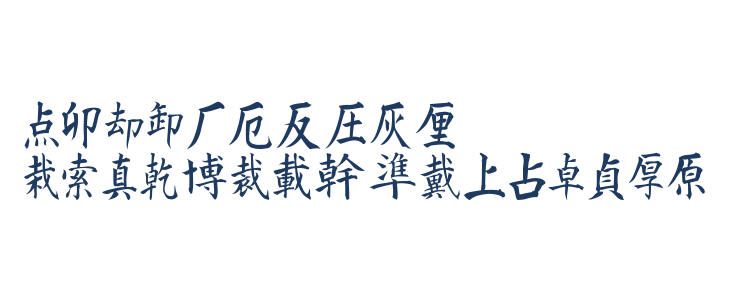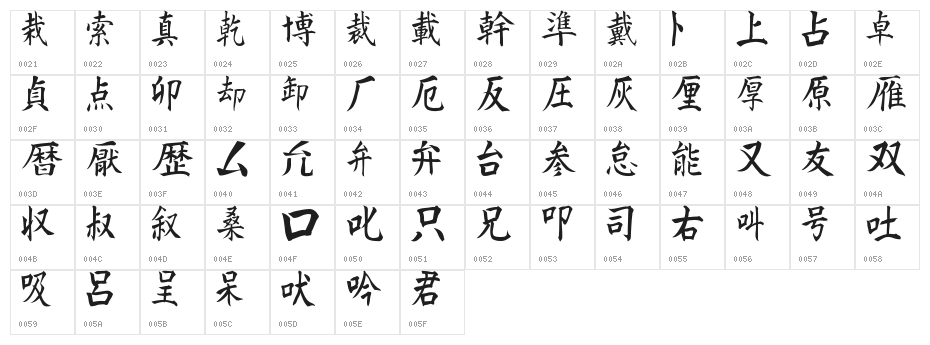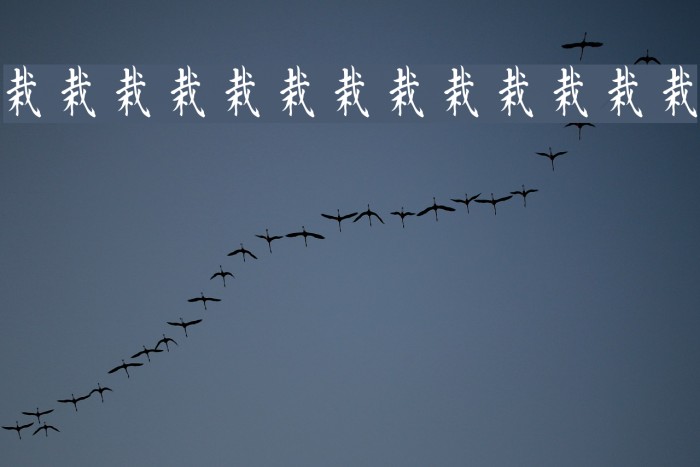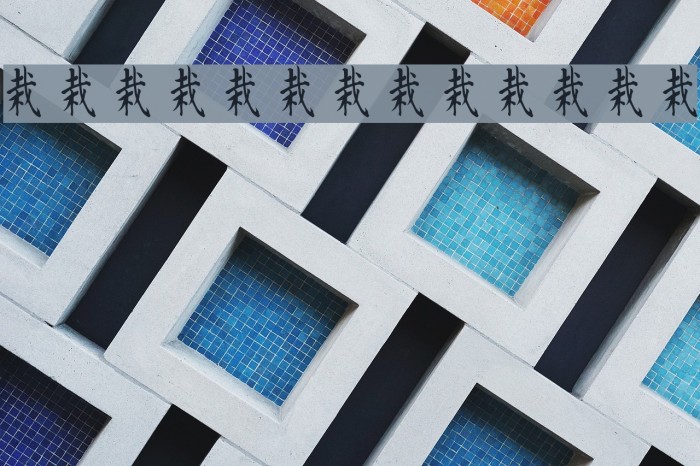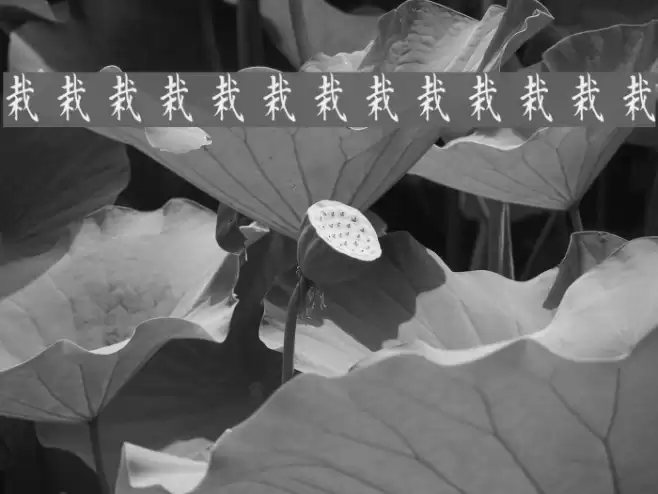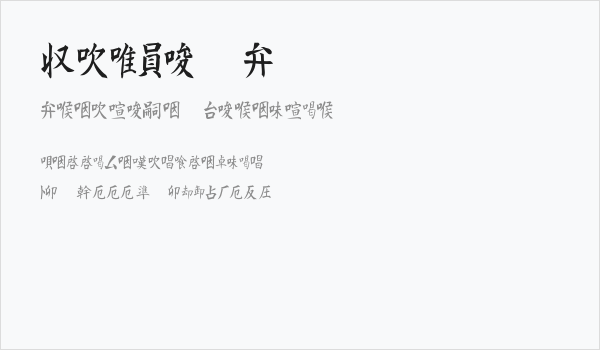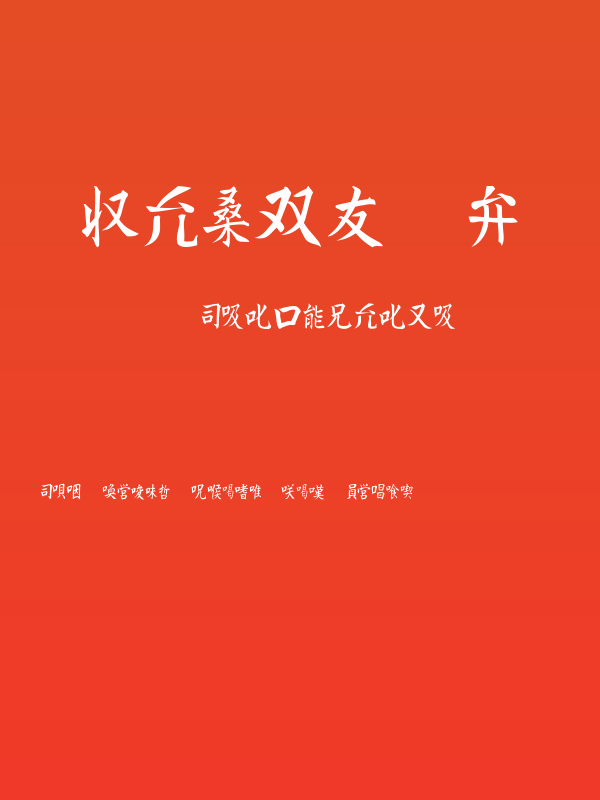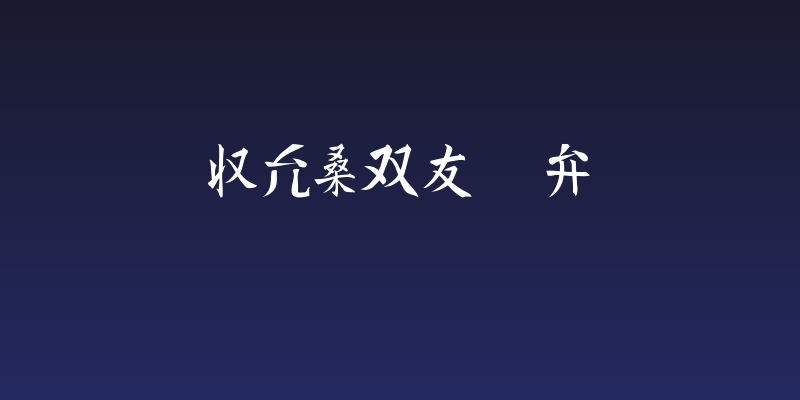
Kanji C Font
Kanji C Description
This image does not contain a valid font sample. It appears to be a repeated display of a single Kanji character in a consistent style. The character is presented in a traditional, calligraphic manner, with elegant strokes and a balanced composition. The style reflects a classic and formal aesthetic, often associated with traditional East Asian script styles.
| Overall Style | Traditional |
| Use Case | Decorative purposes, cultural displays. |
| Proposed Projects | This style could be used for projects requiring an authentic East Asian aesthetic, such as cultural event posters, traditional art pieces, or educational materials on calligraphy. |